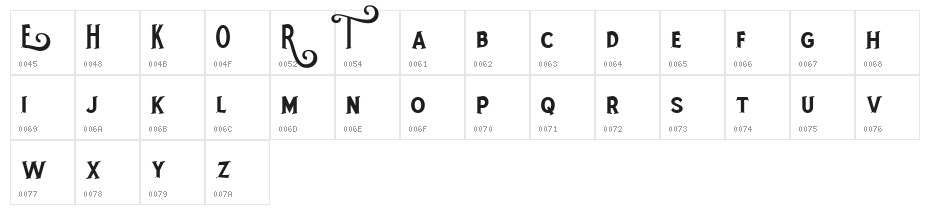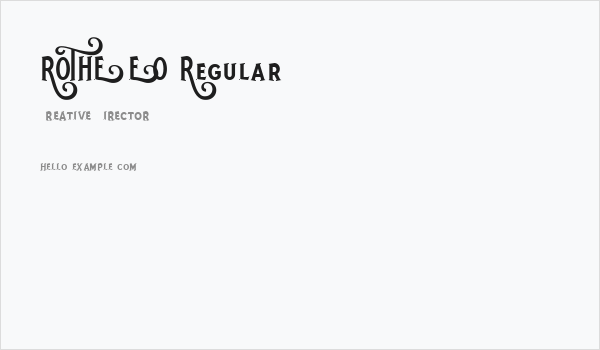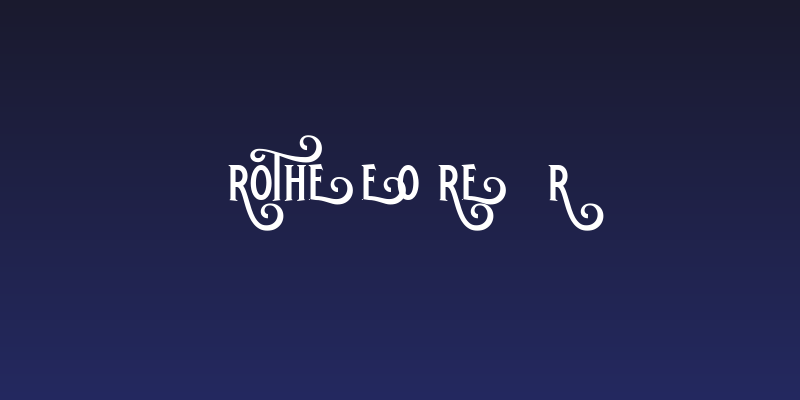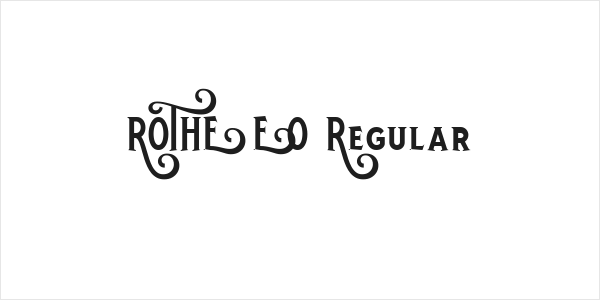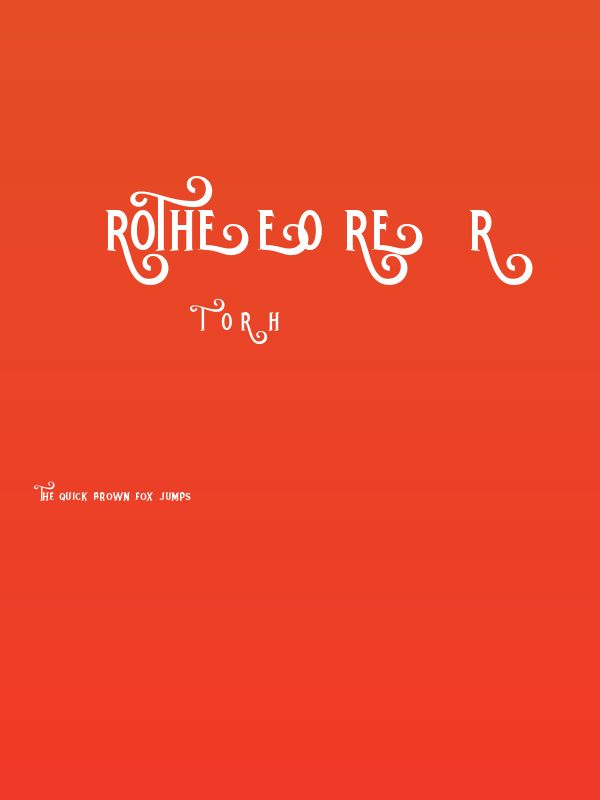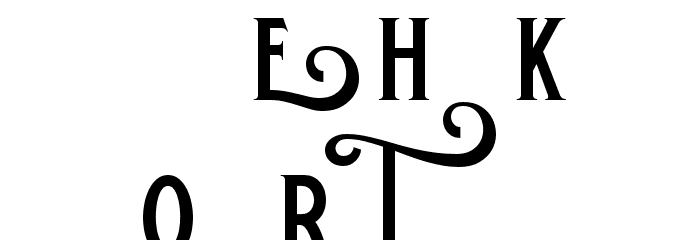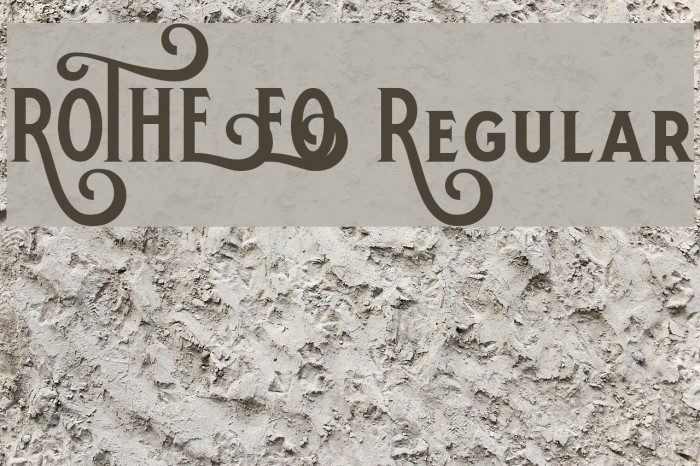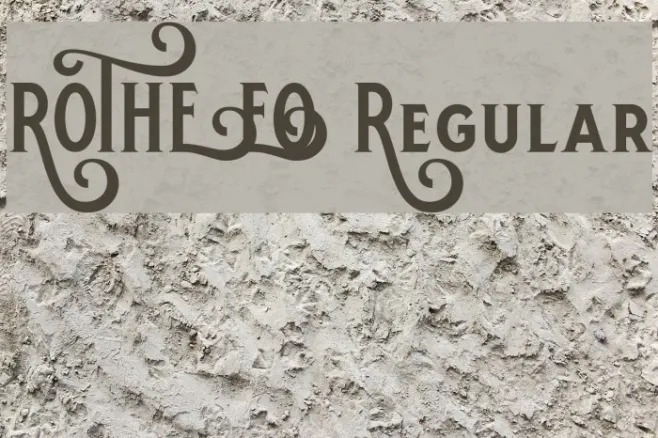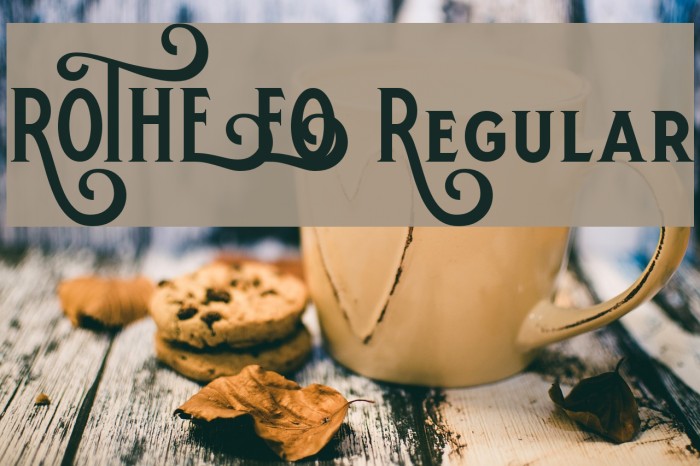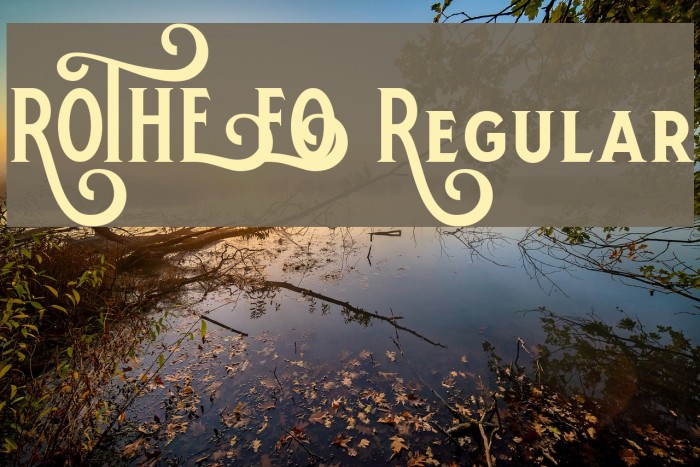
ROTHE DEMO Regular Font
ROTHE DEMO Regular Description
This font features a bold and striking design with a strong emphasis on decorative elements. The uppercase letters are robust and commanding, with some characters incorporating elegant swashes and flourishes that add a touch of sophistication. The overall appearance is both classic and modern, making it versatile for various design needs. The characters are well-defined with a consistent weight, providing a balanced and harmonious look. The font's unique style is suitable for making a statement in any project, whether in print or digital media.
| Proposed Projects | Ideal for branding, headlines, posters, and invitations where a bold statement is needed. |